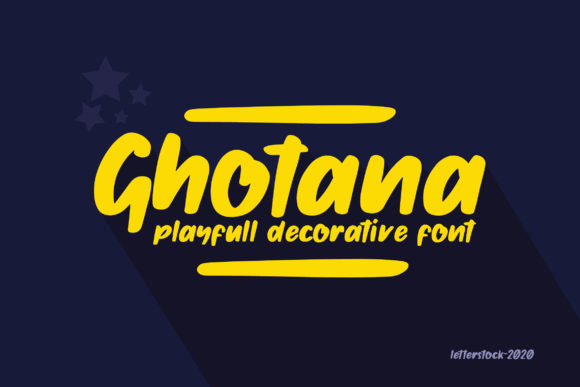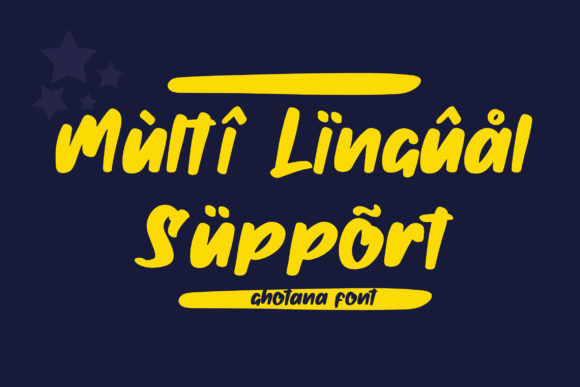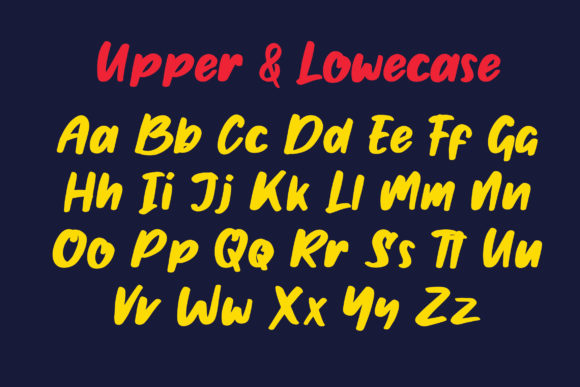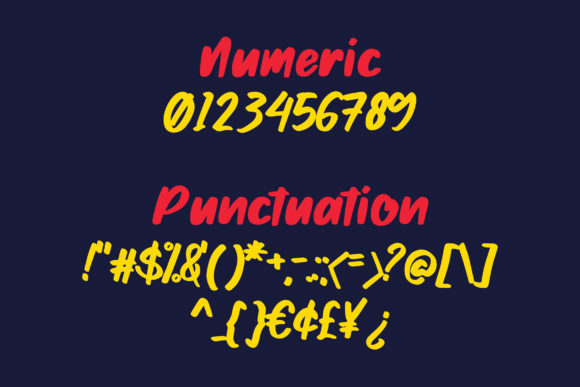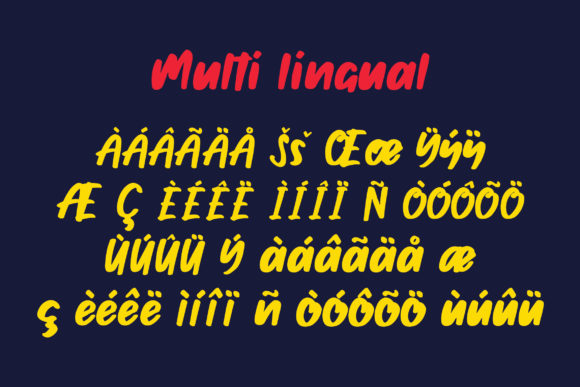
Ghotana Font
About Ghotana Font
Ghotana is a bold and a bit quirky handwritten font. Its chunky and extended characters will look particularly adept when used in logos, branding, packaging design, and much more. This masterfully designed font is a true must-have.